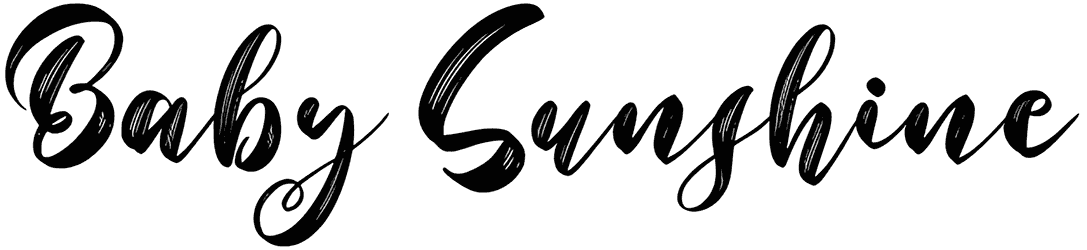
Baby Sunshine Font
We are here again to proudly introduce a magical brush font, such as Baby Sunshine, to you. This lovely masterpiece comes with elongated characters and sophisticated textures.
So it can give a fresh breath to all of your visual content and boost the visibility of your product packaging, applications, wood engravings, greeting cards, or social media posts. Aside from the lack of good visibility, it is still worth trying any kind of creative idea.